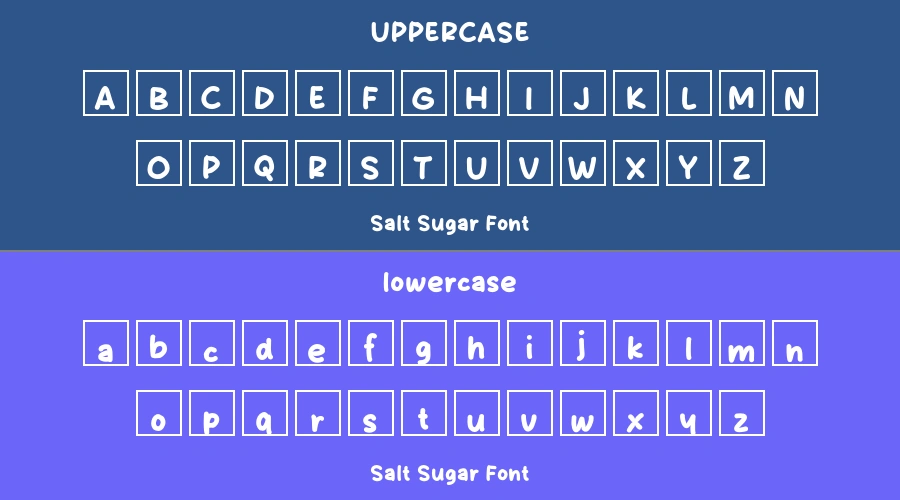
About Salt Sugar Font
Salt Sugar Font represents a sophisticated approach to type design, balancing teardrop terminals with professionalism. Perfect for financial statements, this font family showcases impressive consistency and technical excellence throughout its character set. Designers appreciate its versatility and reliability.
Designers will appreciate nuanced touches including tapered strokes and initial forms, adding sophistication to any project. These features become apparent in hero imagery, where headline impact matters most. The careful treatment of counter size and artistic merit ensures optimal performance.